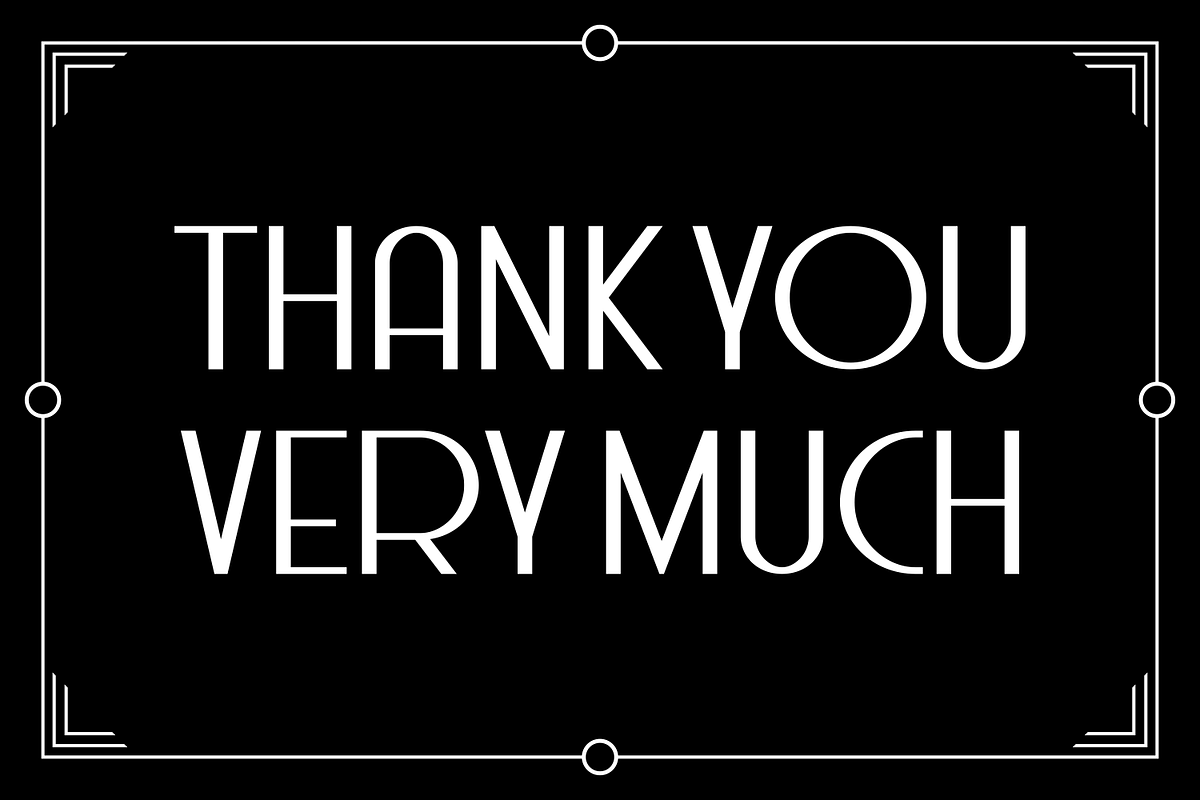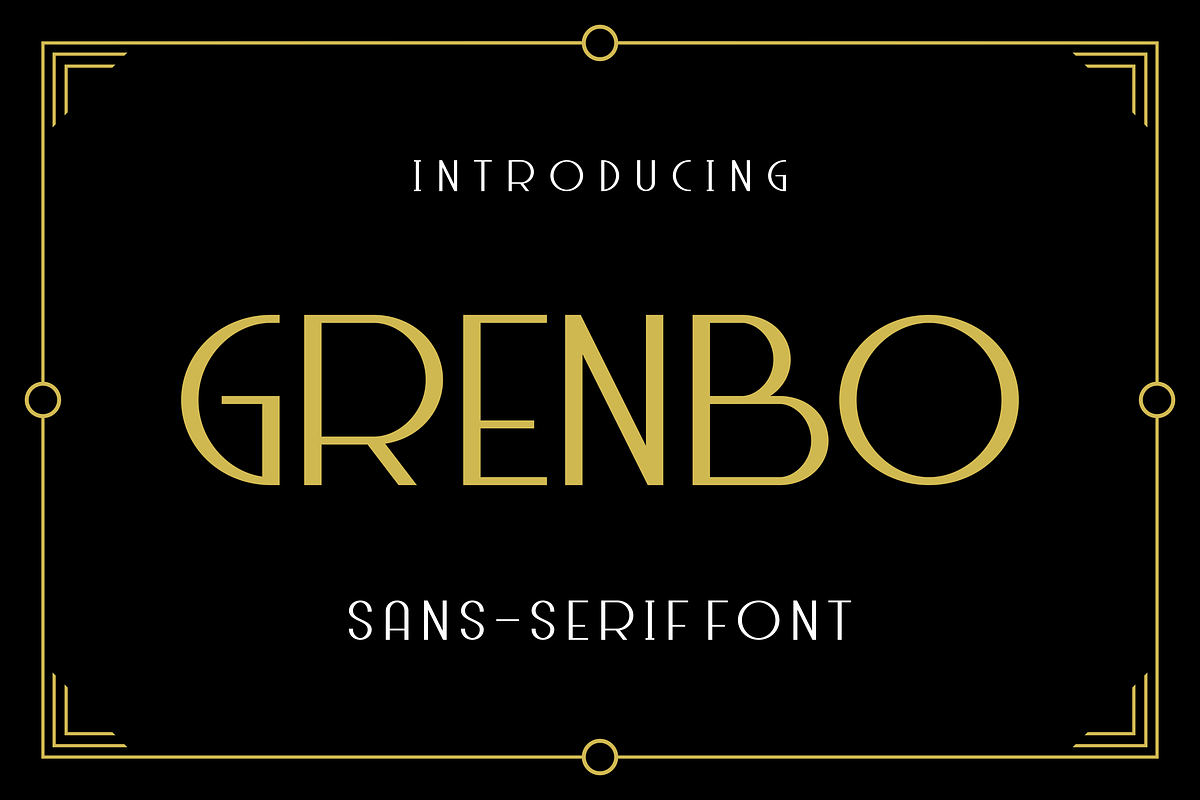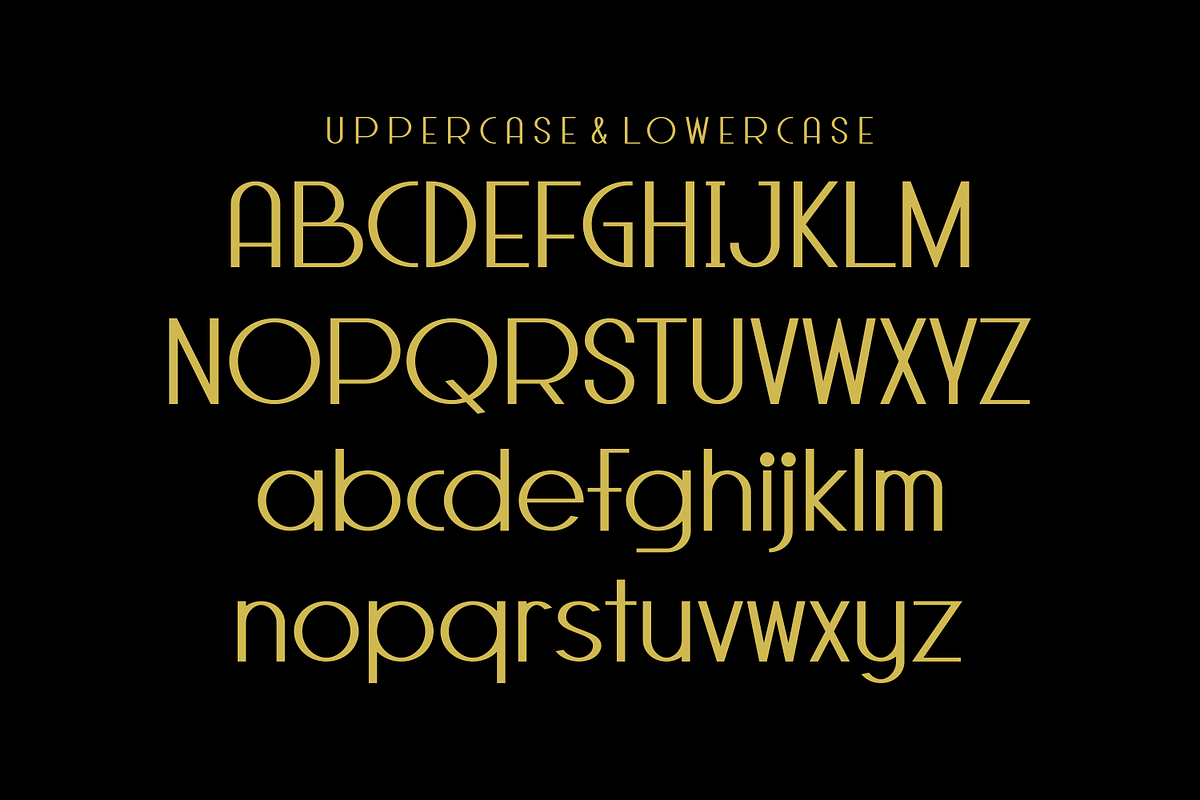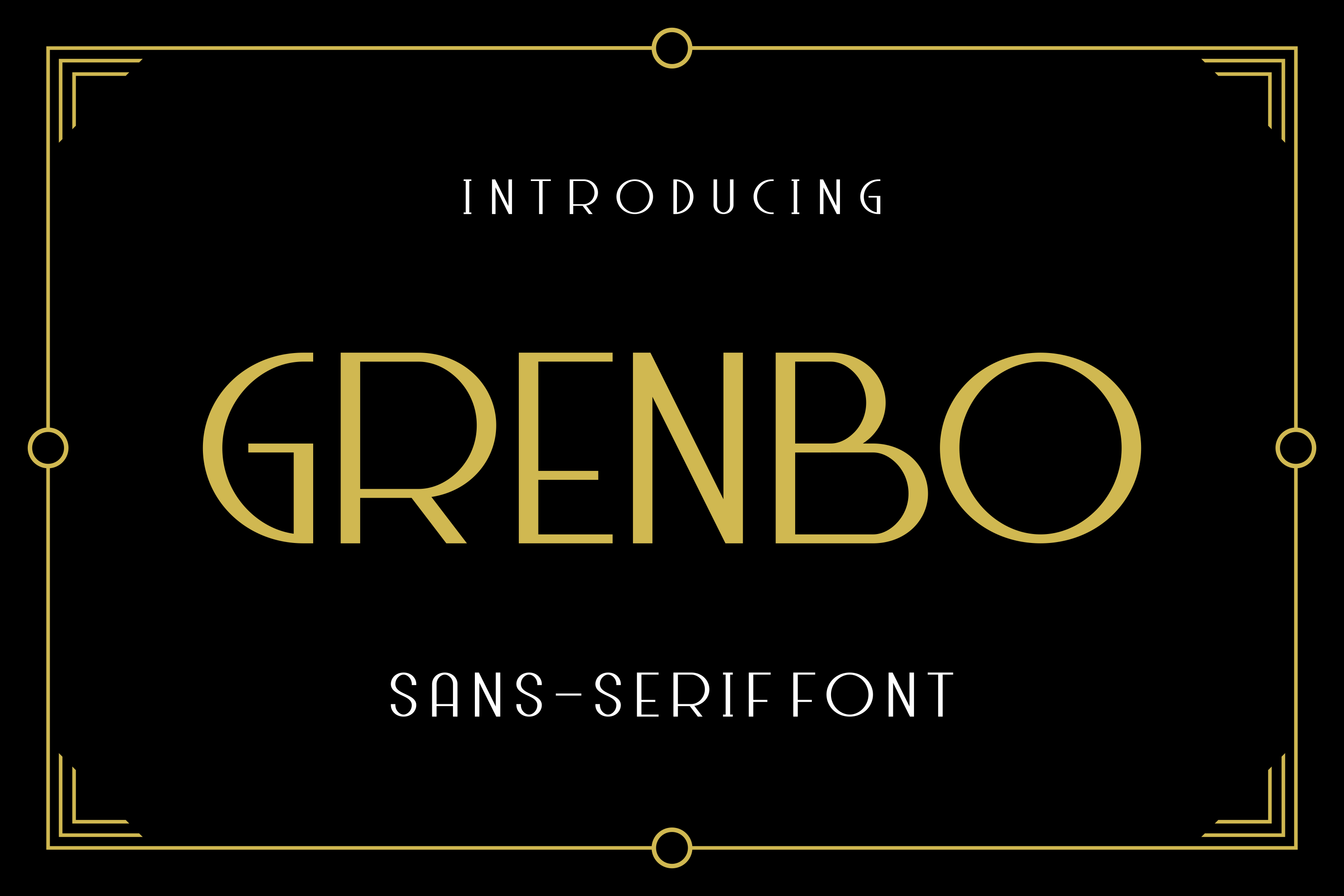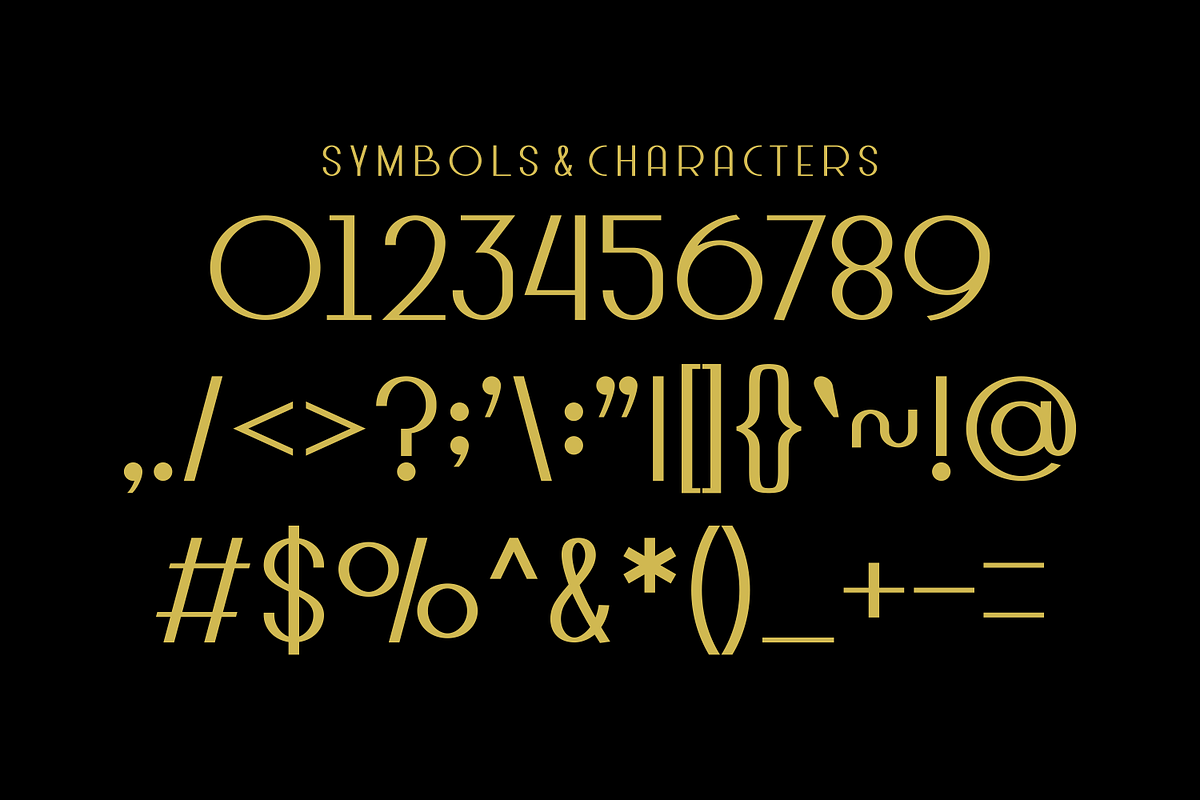
Grenbo - Sans Serif Font
font name Perfectly suited on print/screen. it’s perfect for Branding, name card, poster, logo, magazine, cover, banner, t-shirt and headers, or even large-scale artwork.